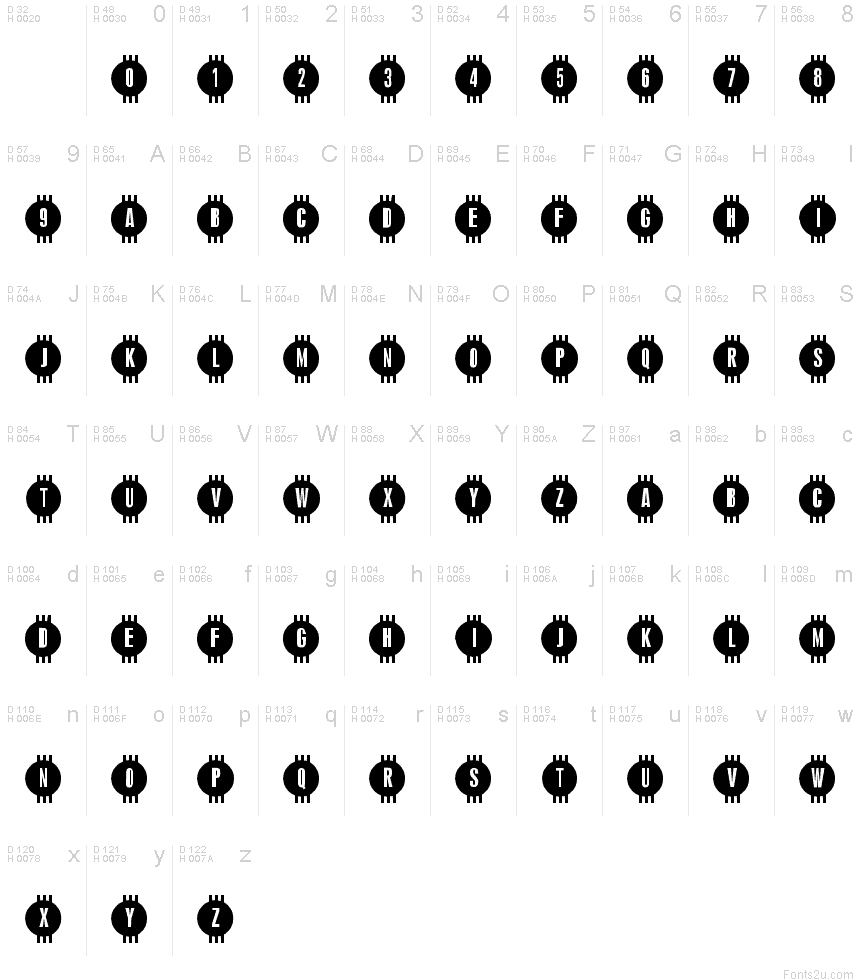
Decorina
Decorina font by House of Lime is a free decorative display typeface that turns every letter into a bold, vertical medallion. Each character sits inside a solid, pill-shaped black capsule, flanked by slim bars that feel like vintage tickets or old theater signage. The result is loud, graphic, and wonderfully tactile—like ink-stamped badges lined up in a row.
This free font shines on circus-inspired posters, carnival or fair branding, retro event flyers, bold banners, packaging, and playful social graphics. Using Decorina at large sizes instantly creates a strong, rhythmic headline, while a simple sans-serif body typeface underneath keeps things readable. Keep words short and punchy to let each capsule-like letterform really pop.